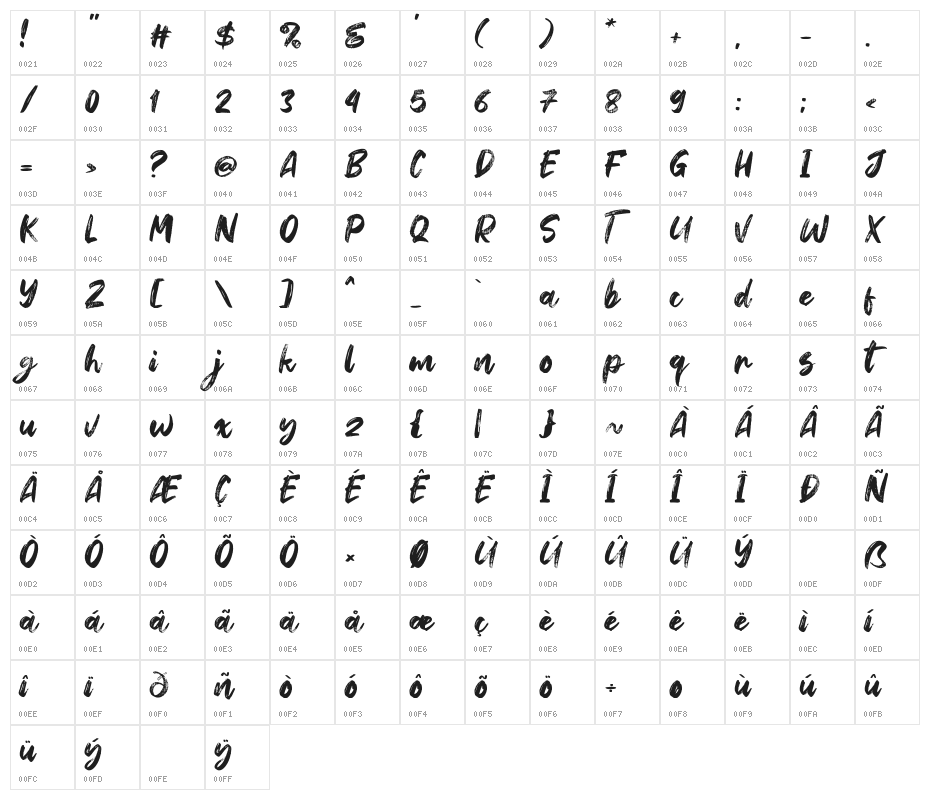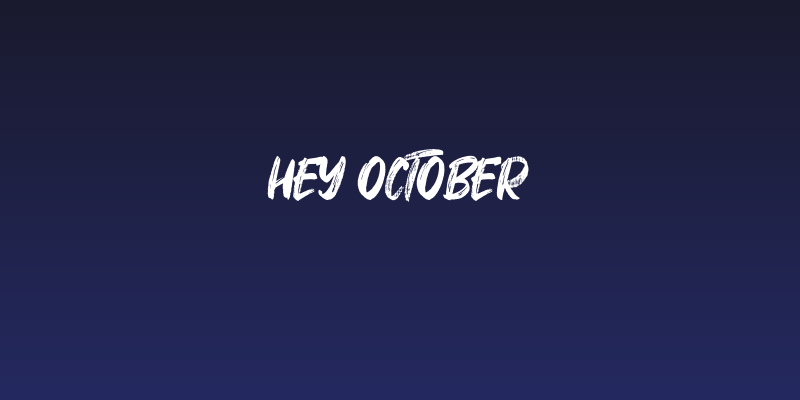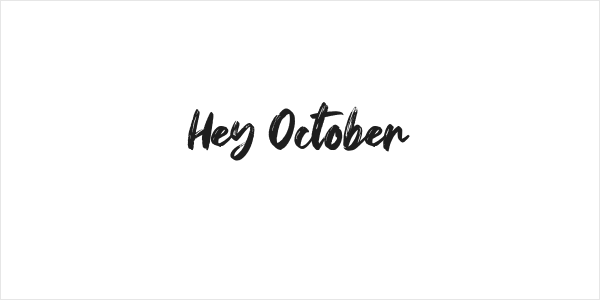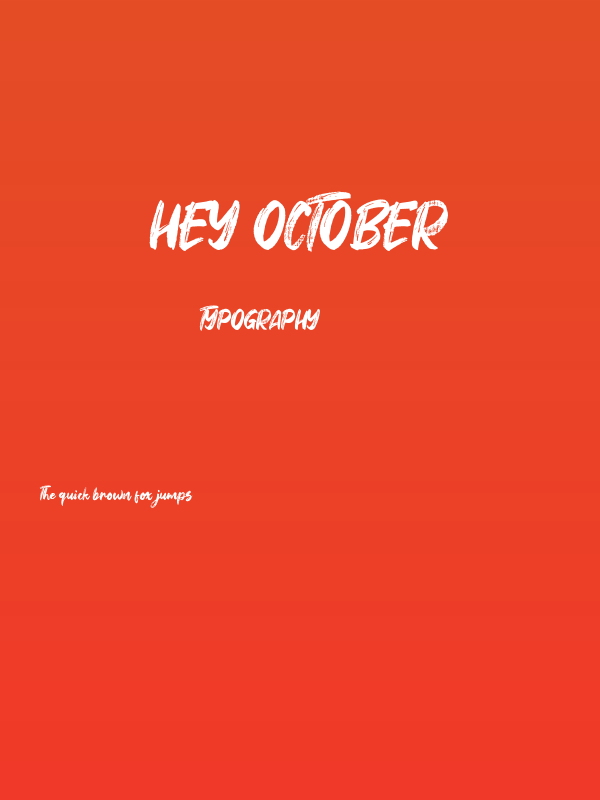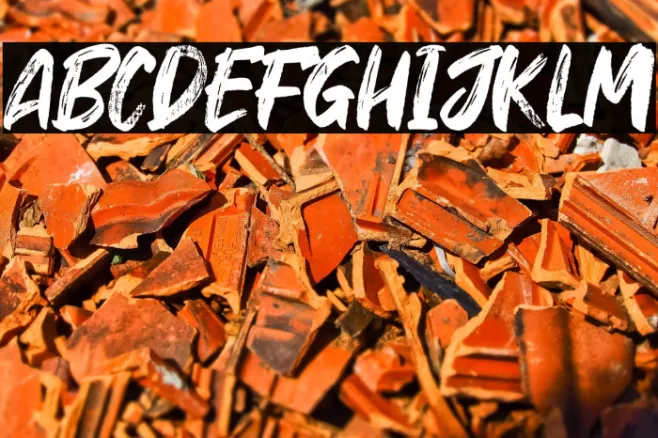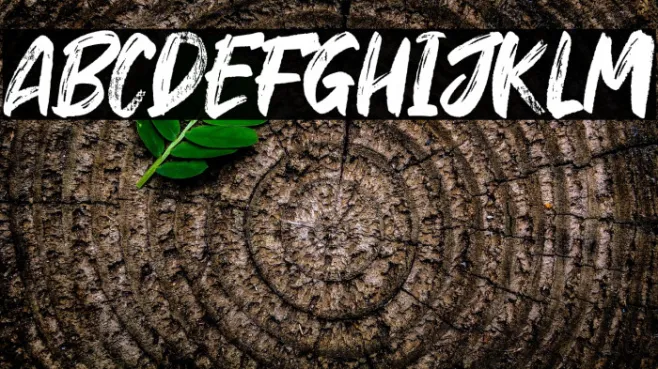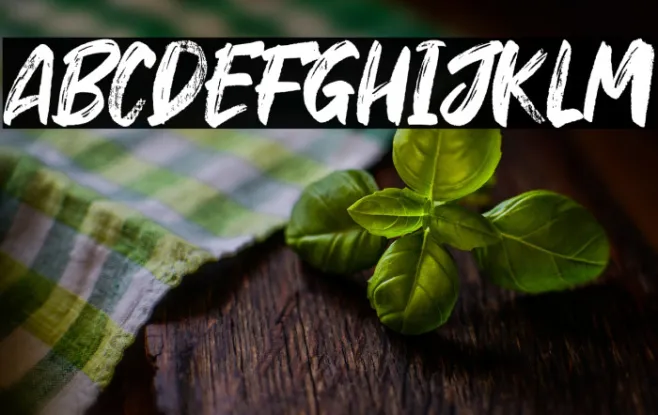
Hey October Font
Hey October Description
This font exudes a bold and expressive style, characterized by its brush-like strokes and dynamic appearance. The letters are crafted with a sense of movement and energy, giving them a hand-painted look. The uppercase and lowercase letters maintain a consistent flow, while the numbers and special characters complement the overall aesthetic. The texture within each character adds depth and a tactile quality, making it ideal for projects that require a personal and artistic touch.
| Overall Style | Modern, Artistic |
| Use Case | Headlines, Posters, Artistic Designs |
| Proposed Projects | Ideal for branding, posters, artistic projects, and any design requiring a bold, expressive touch. |